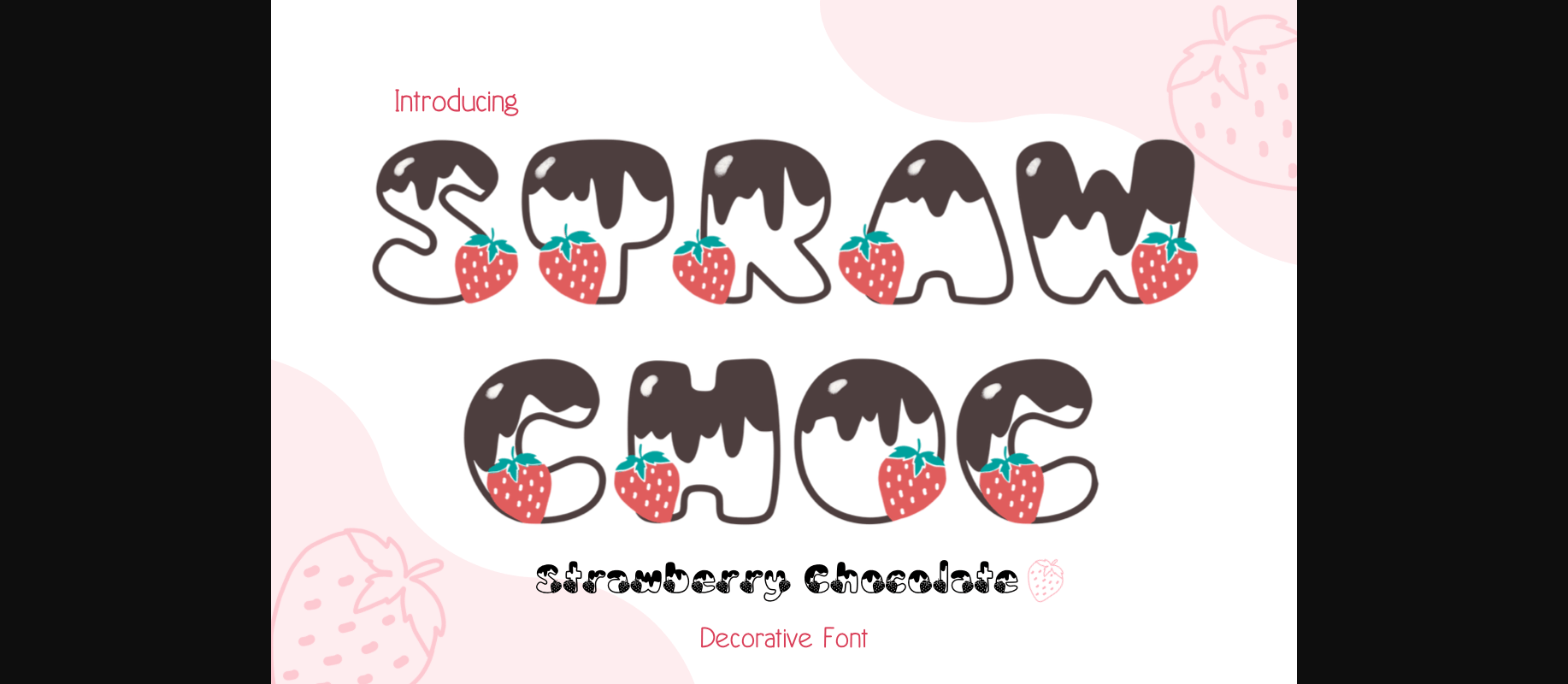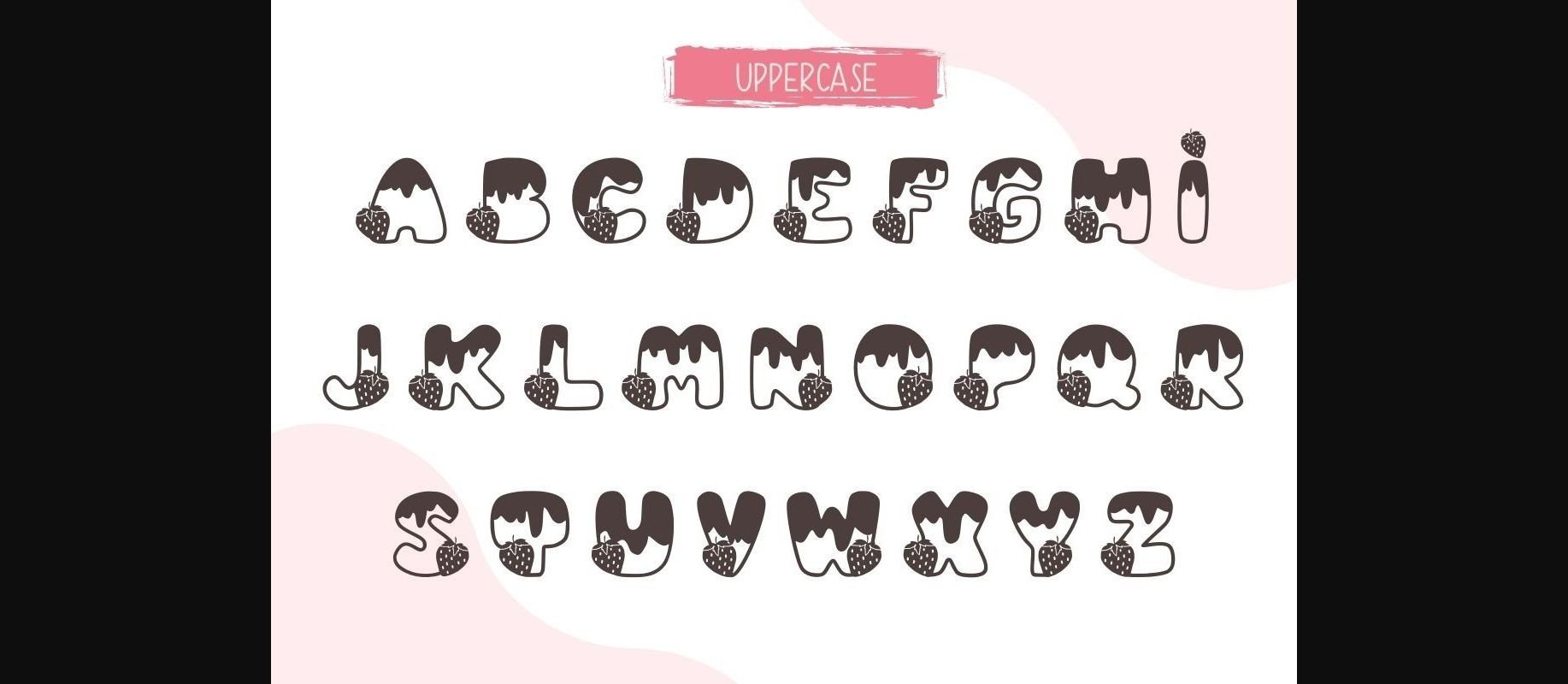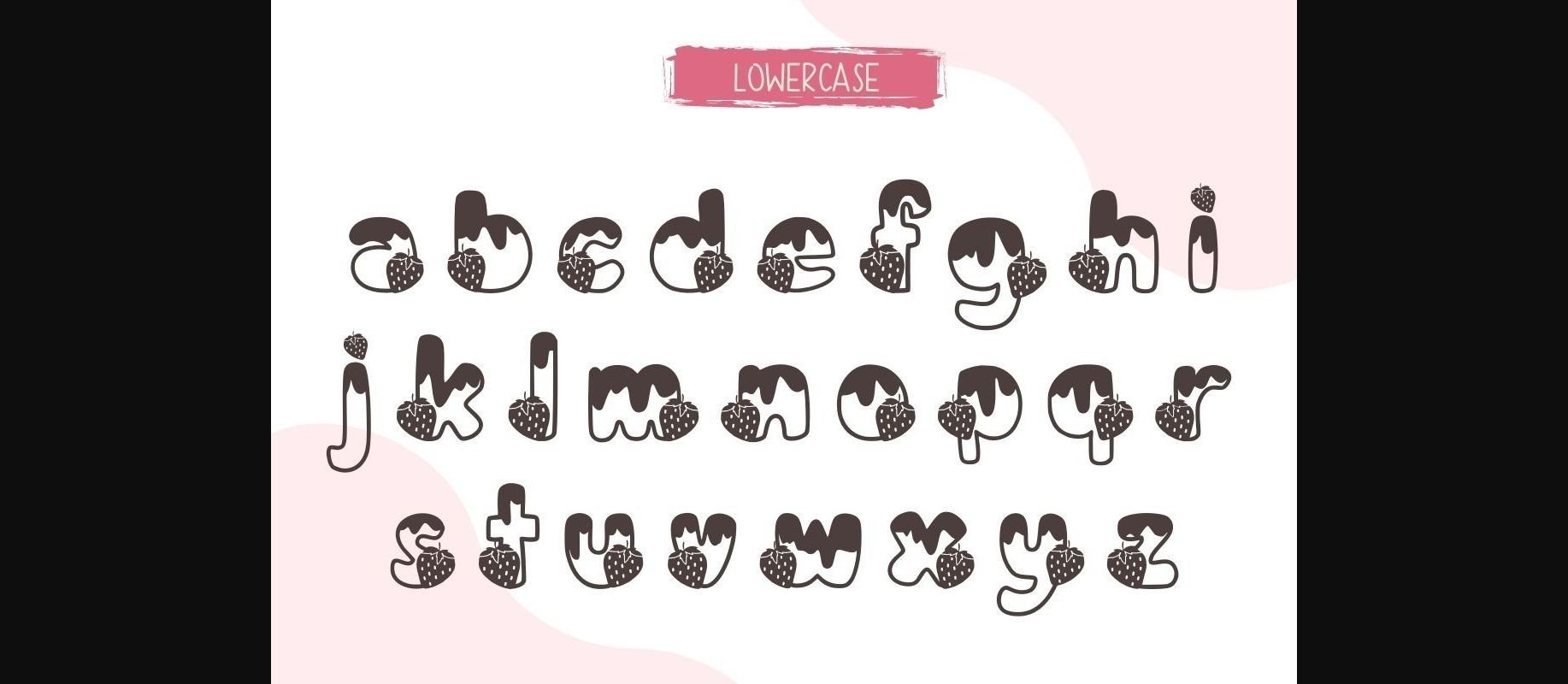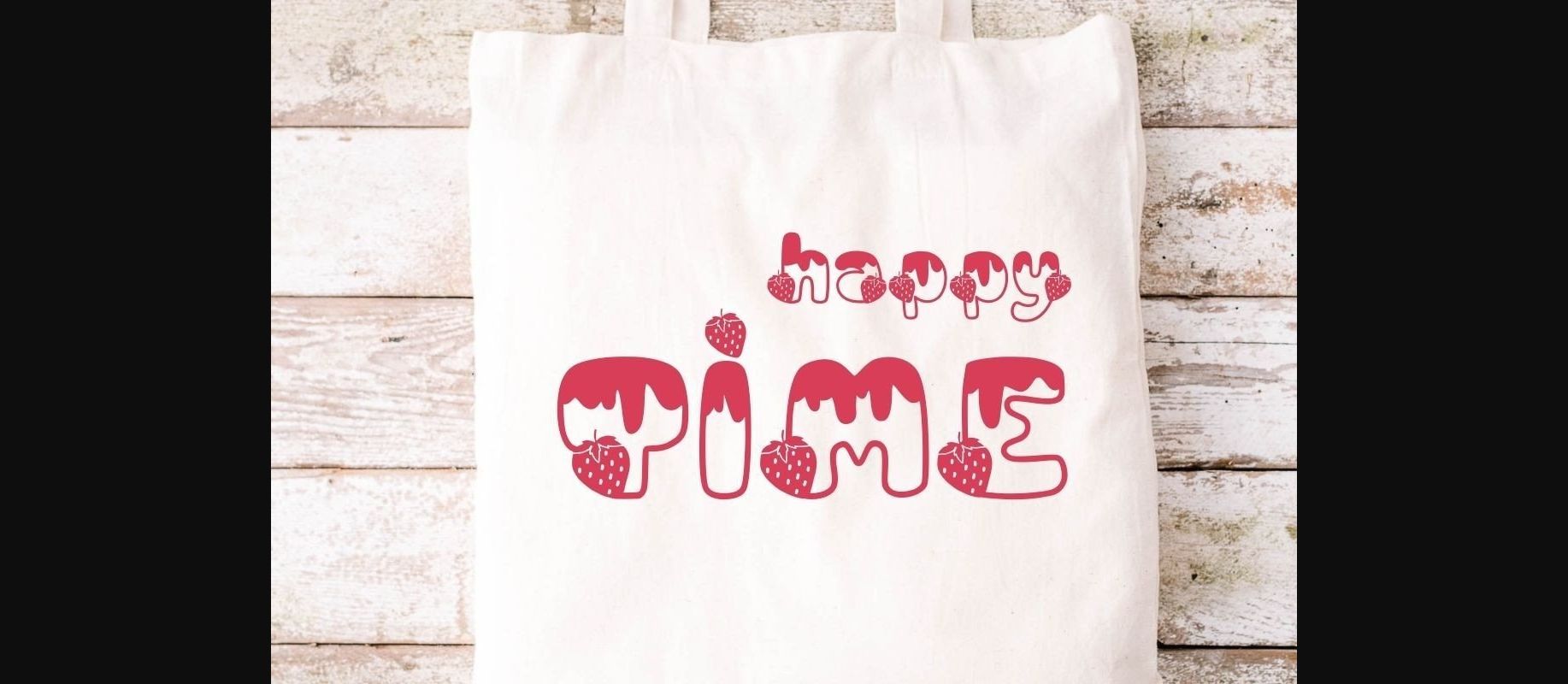
About Strawberry Chocolate Font
Strawberry Chocolate is an adorable decorative font. This font uses adorable strawberries combined with melted chocolate motifs. This font has a cute and quirky style and is perfect for creating a variety of new designs to match products such as banners, content, mugs, cards, shirts, stationery, social media posts, and many more!